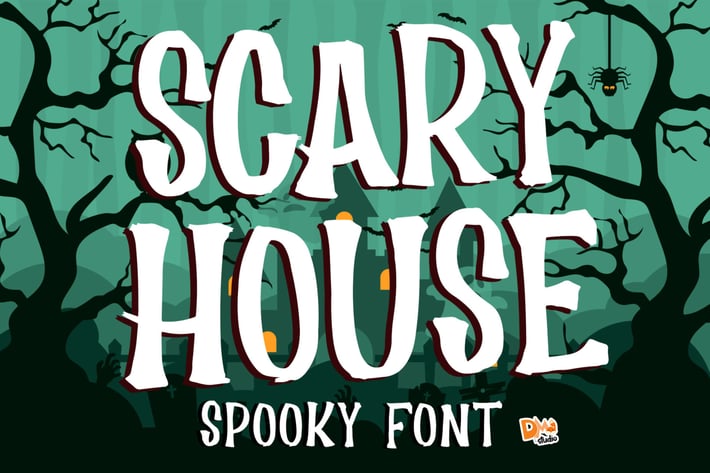
Scary House - Spooky Font
Scary House is a rough and spooky display font, great for your Halloween moment!
All in caps only
Numerals
Symbols and punctuations